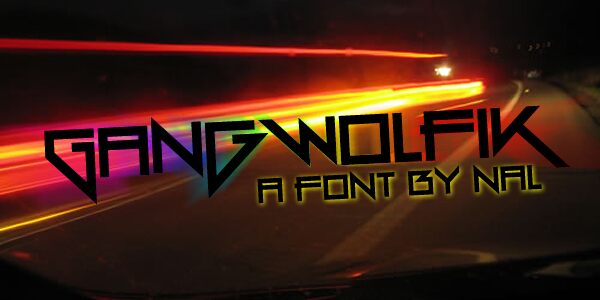
Gang Wolfik by NAL of FontStruct is a free futuristic display font whose broad geometric capitals rely on hard right angles, deep cut-ins, and sudden diagonal strokes. The compact alphabet resembles custom lettering for a machine interface.
Technology brands and gaming studios could use it for logos, launch graphics, and title cards with an assertive science-fiction edge. The squared construction suits hardware packaging and electronic music artwork, especially when the lettering echoes circuit paths or angular industrial forms. Recurring notches and sharp joins can become part of a larger interface motif, connecting the type directly with panels, icons, and technical illustration.